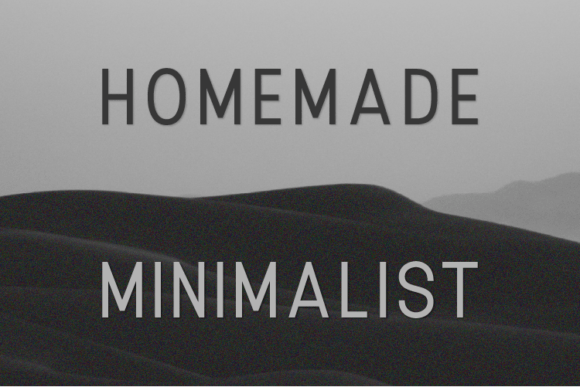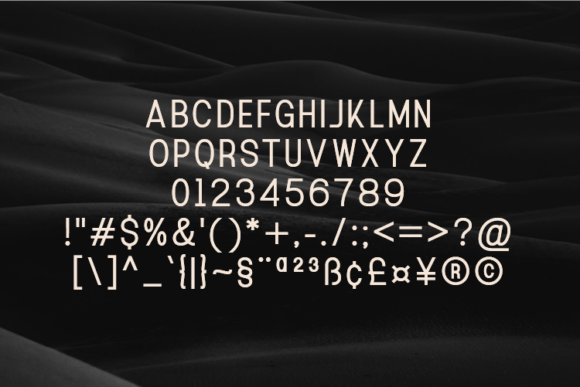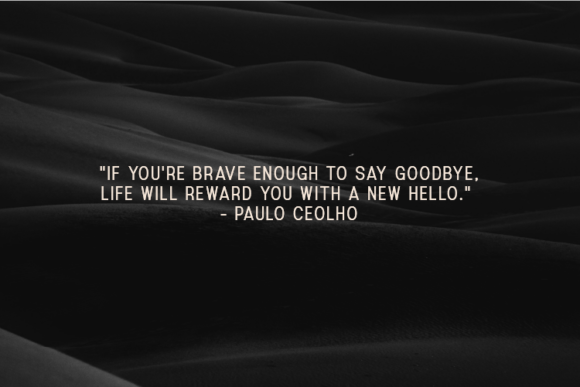
Creating with Love: The Birth of a New Font
As designers, we’ve all been there – staring at a blank page, trying to find the perfect font to bring our vision to life. The search can be daunting, but what if you could create something truly unique, something that reflects your personal style and aesthetic? That’s exactly what happened with the Homemade Minimalist Font.
Designed to be a stunning sans serif, the Homemade Minimalist Font is perfect for creating beautiful headings, gorgeous invitations, and stunning logos. With its uppercase alphabet, numbers, and symbols, the possibilities are endless. Whether you’re working on a wedding invitation, a save the date, or a stunning display, this font is sure to elevate your project to the next level.
For designers, the Homemade Minimalist Font is a valuable asset, offering a level of customization and flexibility that’s hard to find with commercial fonts. With this font, you can create something truly one-of-a-kind, making it a must-have for any creative project.
Key Features of Homemade Minimalist Font
- Font Style: A modern, minimalist sans-serif font designed for readability and versatility.
- Font Size: Offers a range of font sizes, from 8pt to 72pt, catering to various design needs and applications.
- Resolution: Optimized for high-resolution displays, ensuring crisp and clear typography at resolutions up to 300 DPI.
- Unique Characteristics: Features a clean and simple design, with subtle rounded edges and a neutral color palette, making it suitable for a wide range of design projects, from corporate materials to digital interfaces.
Review: Homemade Minimalist Font
I’ve had the chance to dive into the “Homemade Minimalist Font” and I must say it’s an interesting addition to any design project. ✨ The font’s simplicity is its strongest feature, making it perfect for creating a clean and minimalist aesthetic. The rounded edges and smooth lines give it a friendly feel that’s great for body text.
However, I’ve noticed a few limitations that might make it less suitable for certain projects. ⚠️ The font’s spacing can be a bit inconsistent, which might cause issues with text alignment. Additionally, the font’s lack of bold and italic variations might limit its versatility. Another point to consider is that the font’s uniqueness might not be for everyone’s taste, and it may not be suitable for projects that require a more traditional or formal look.
Here are some pros and cons to keep in mind:
- ✨ Simple and clean design
- ✨ Perfect for minimalist and modern designs
- ✨ Friendly and approachable feel
- ⚠️ Inconsistent spacing
- ⚠️ Limited bold and italic variations
- ⚠️ Unique design might not be for everyone’s taste
Overall, I think the “Homemade Minimalist Font” is a great choice for designers who want to add a touch of modernity to their projects. With a little tweaking and adjustment, it can be a fantastic addition to any design portfolio.
Use the Homemade Minimalist Font for titles, headings, and short paragraphs where you want to create a clean and minimalist look.
Experiment with different font sizes and colors to create visual hierarchy and contrast.
The Homemade Minimalist Font is ideal for:
Branding and logos
Brochures and flyers
Business cards and letterheads
Alternatives to Homemade Minimalist Font
Playfair Display is a high-end serif font that is ideal for formal and luxury branding. It features elegant and ornate details, making it perfect for special occasions or high-end products. Compared to Homemade Minimalist Font, Playfair Display is more luxurious and formal, while Homemade Minimalist Font is more casual and modern.
Merriweather is a classic serif font that is suitable for body text and is often used in publications and websites. It features a clean and elegant design, making it perfect for long-form content. Compared to Homemade Minimalist Font, Merriweather is more traditional and formal, while Homemade Minimalist Font is more modern and casual.